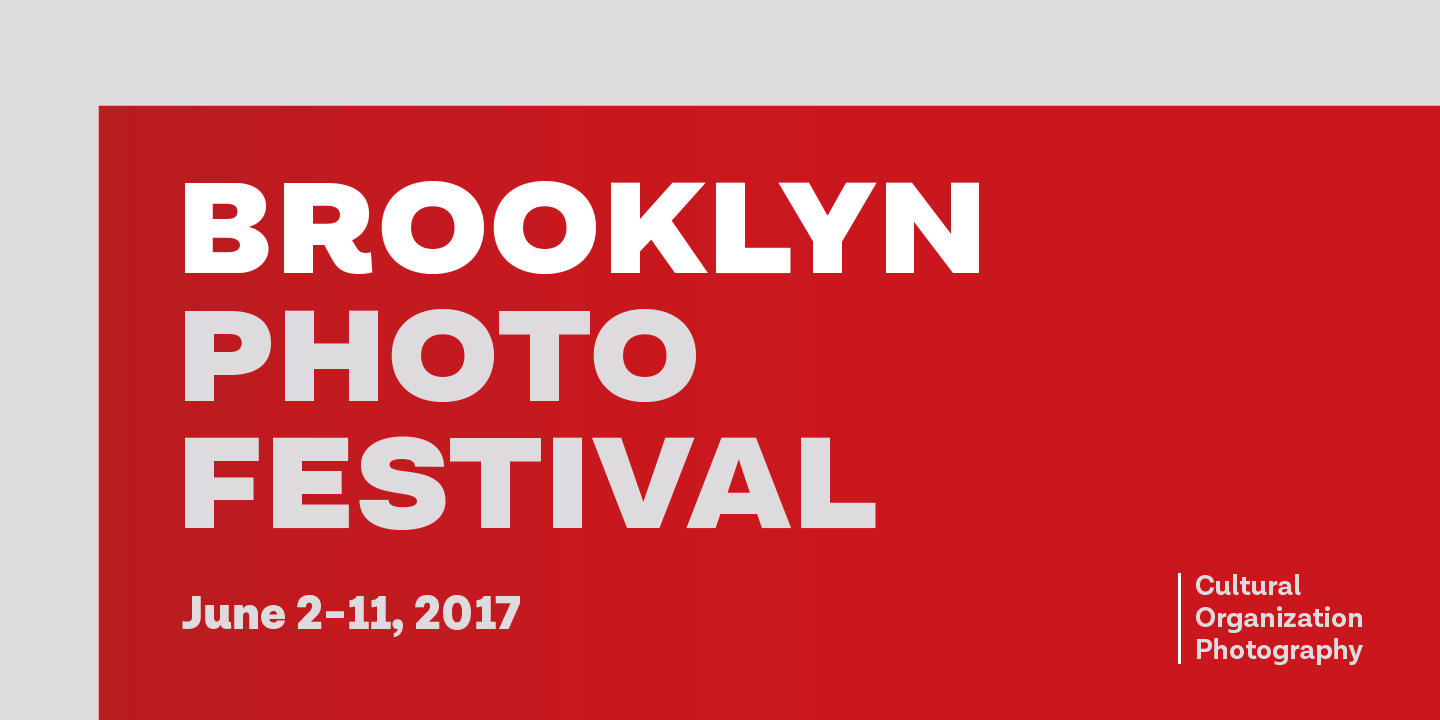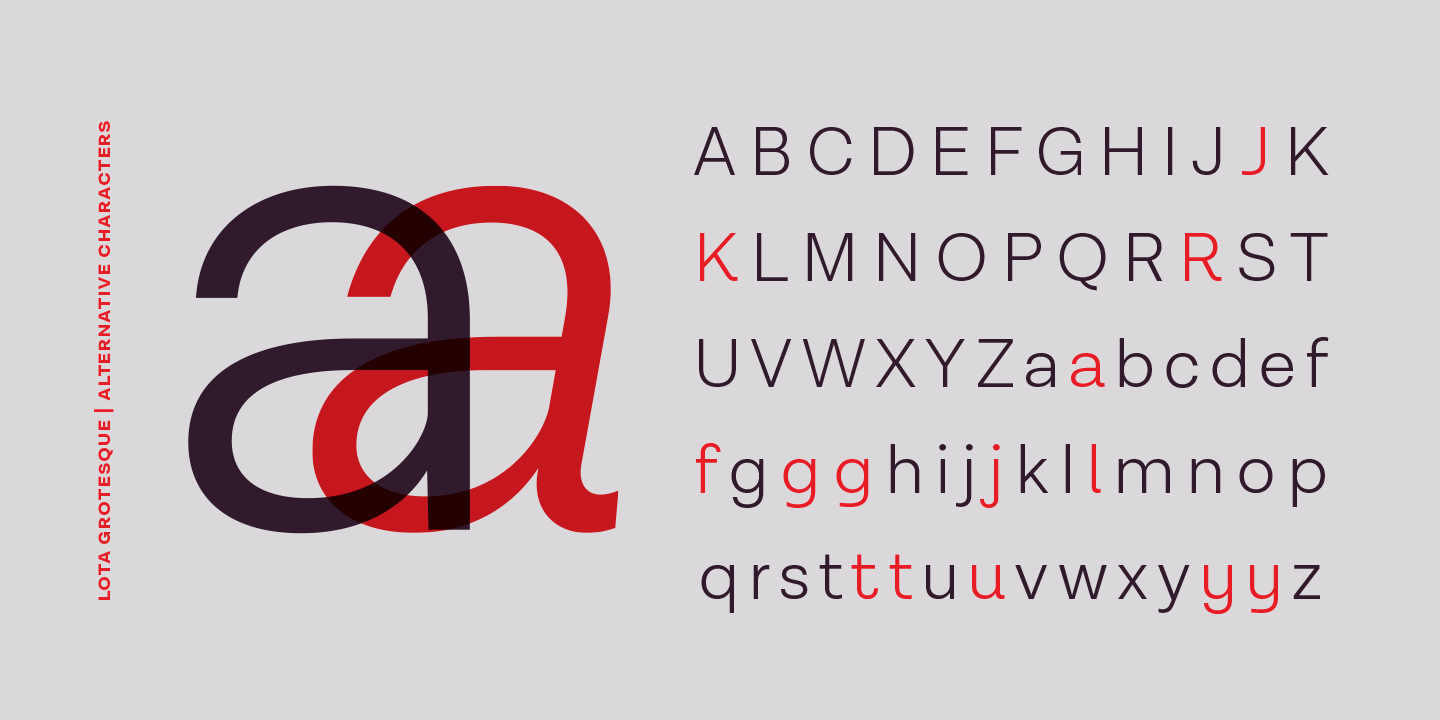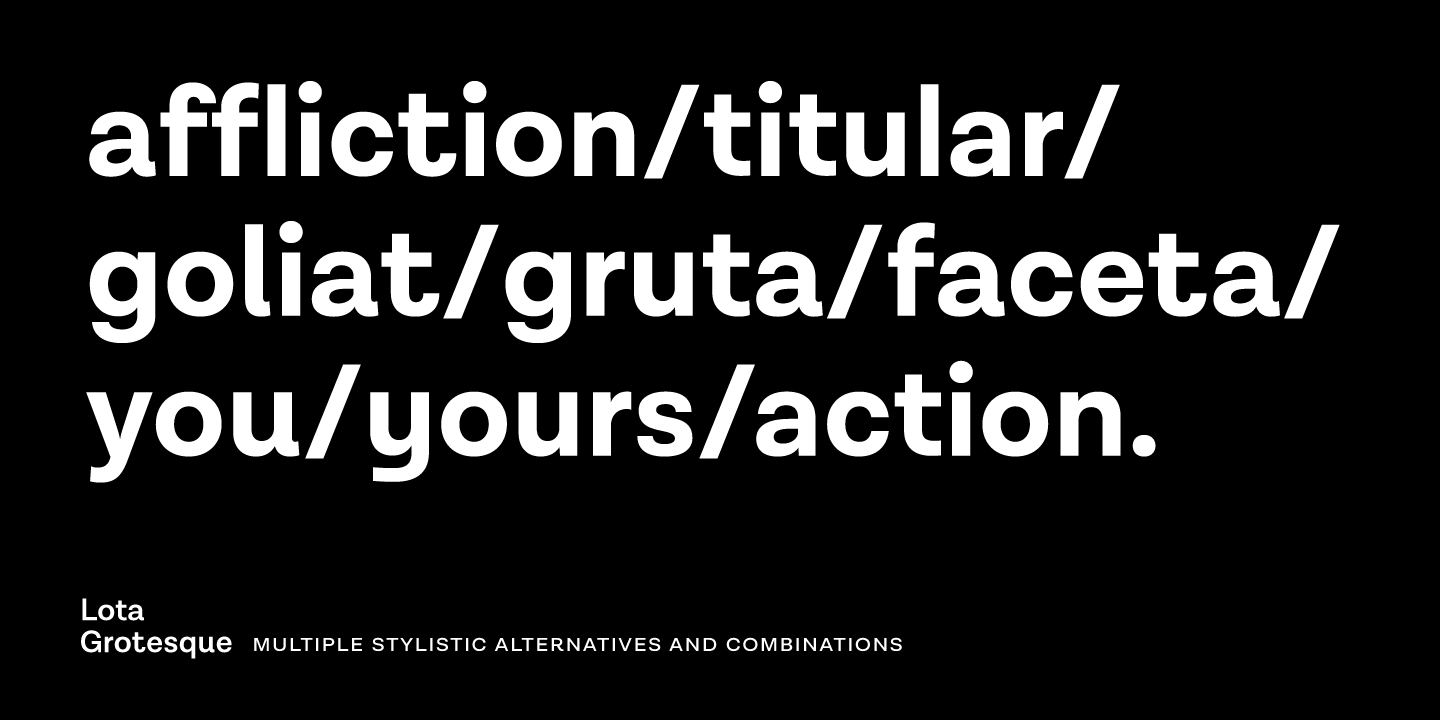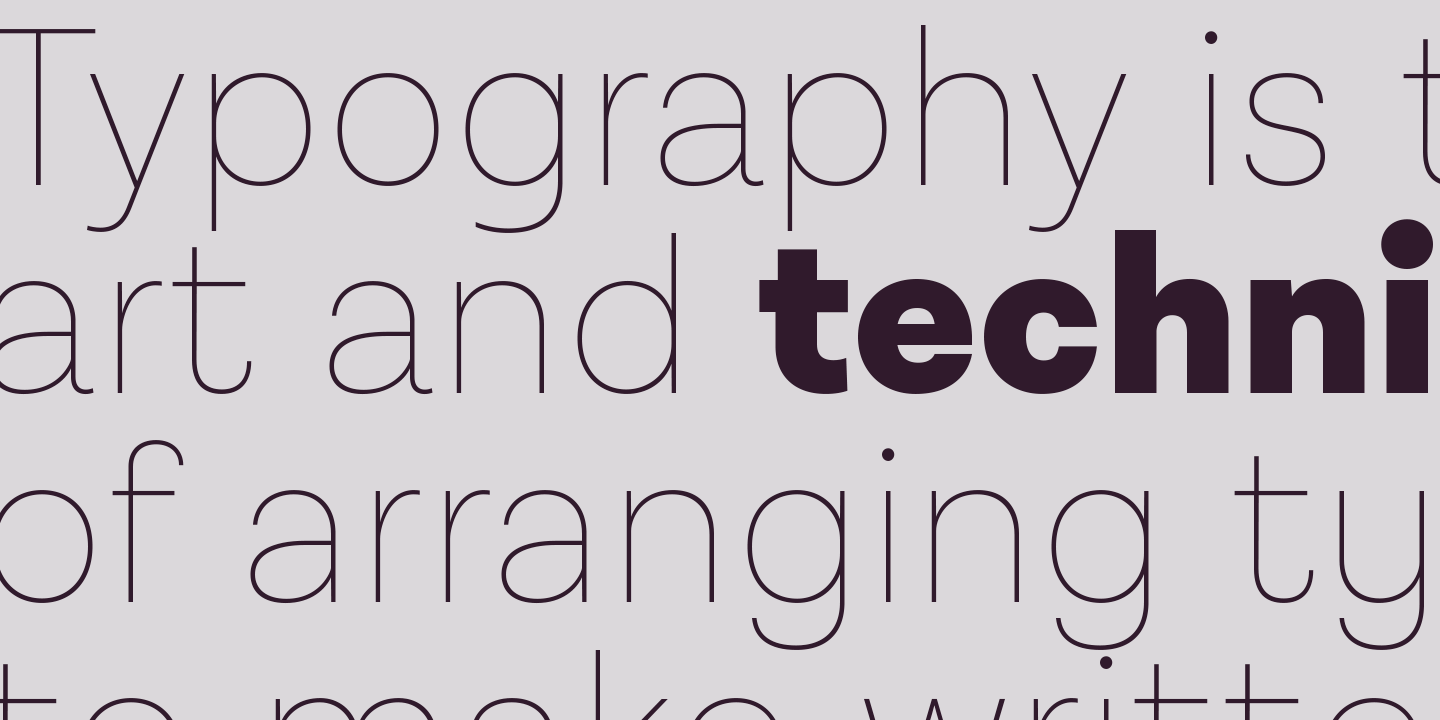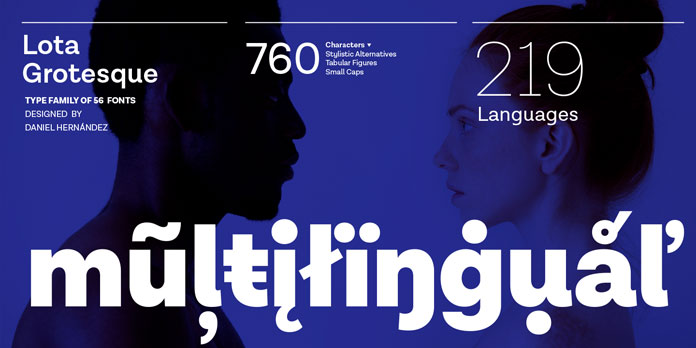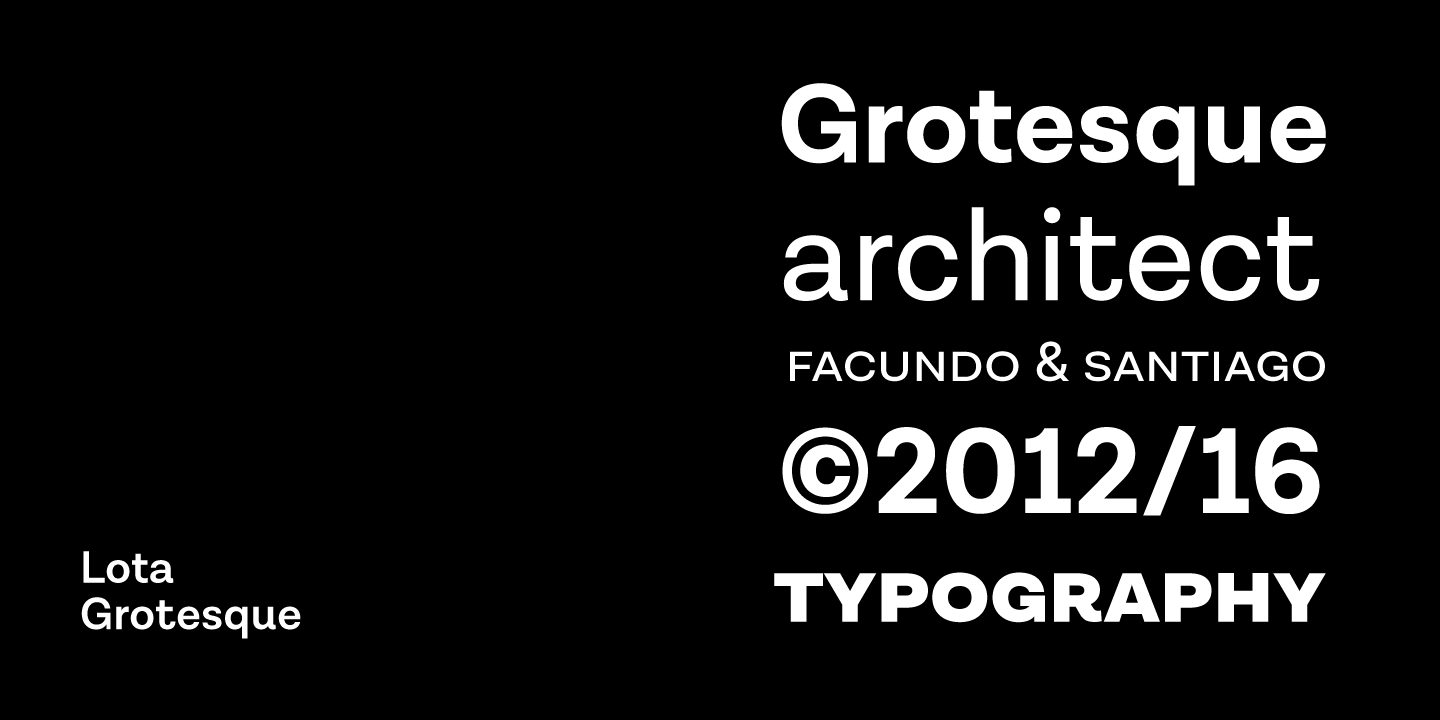
The Lota Grotesque font family, a sturdy, modern typeface with 56 fonts and a lot of typographic features.
Published in May 2017 by type foundry Los Andes, the Lota Grotesque font family has been designed by Daniel Hernández in collaboration with Rodrigo Fuenzalida and the team of Latinotype. Characterized by high versatility and functionality, the family is equipped with 4 subfamilies consisting of 7 weights plus matching Italic versions and a wide range of alternate letters. Furthermore, the family supports 219 languages and comes with plenty of typographic features such as discretionary ligatures, small caps, and a variety of figures and fractions. The well-readable type family can be used for a high variety of needs including editorial and display use. For additional information on the Lota Grotesque family, feel free to follow the link below.